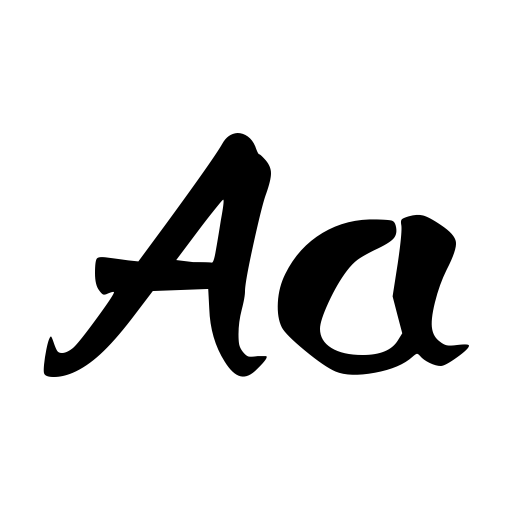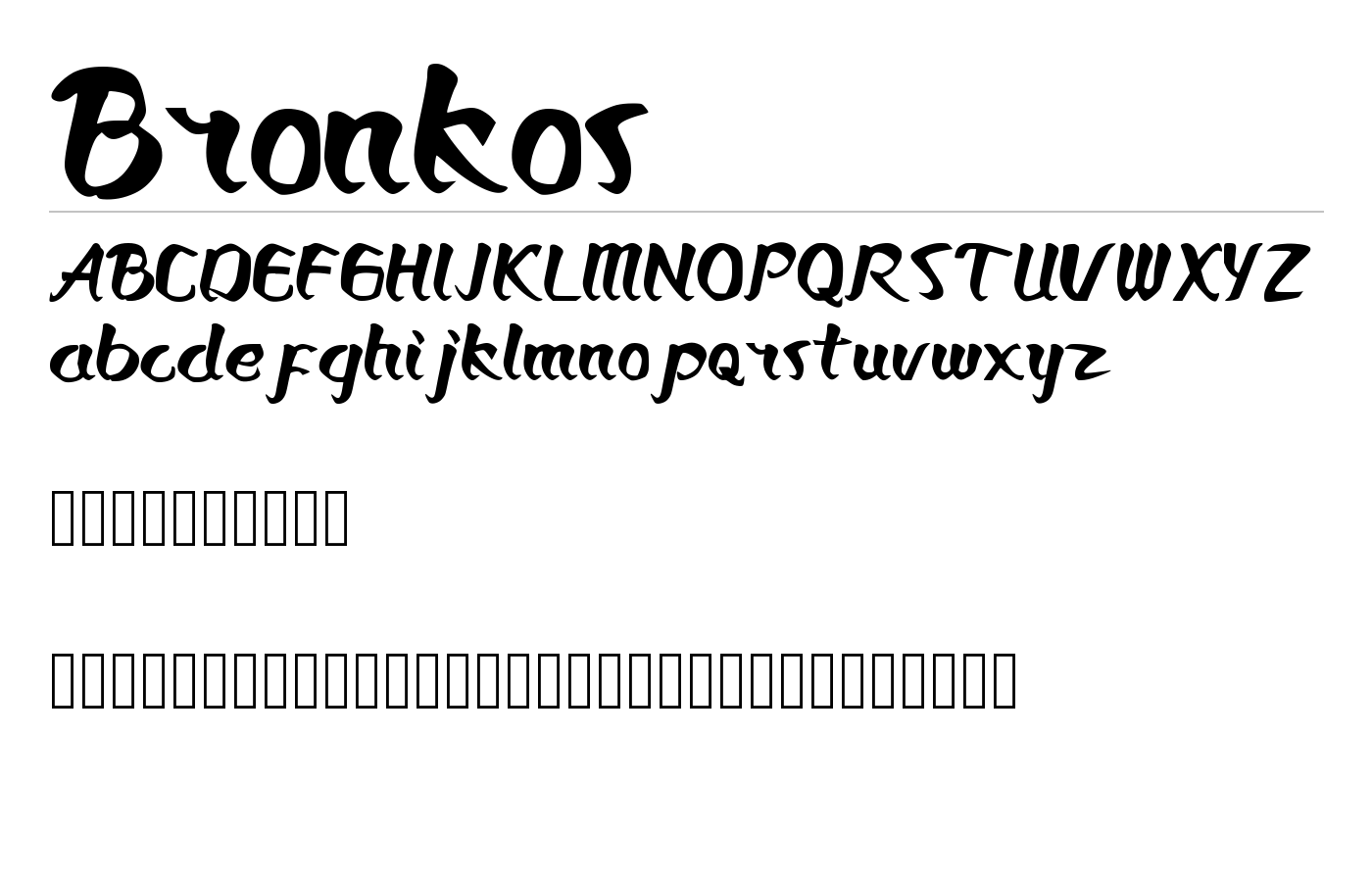
Bronkos is a bold, expressive script font with a hand-drawn feel, characterized by playful curves and varied stroke widths. Its unique letterforms and dynamic flow make it ideal for creative branding, logos, and headlines that need personality and energy. This font works best in designs seeking a friendly yet artistic touch, standing out in posters, fashion branding, and editorial projects.
Bronkos Font